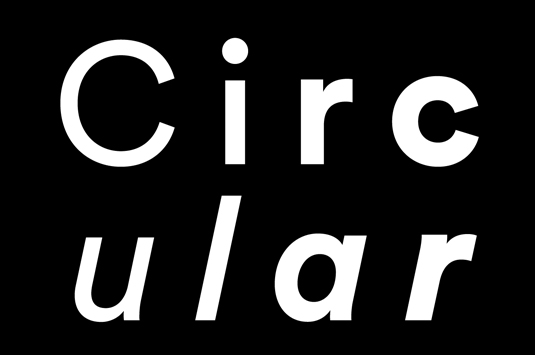
Greatest fonts countdown: 45 – LL Circular
We're counting down the 100 greatest typefaces in existence. Here's number 45...
FontShop AG, the renowned type foundry, conducted a survey based on historical relevance, sales at FontShop.com, and aesthetic quality. With a few additions from the experts at Creative Bloq and Computer Arts magazine, the best fonts ever were selected for the book, 100 Best Typefaces Ever.
Here we are counting down the 100 greatest fonts, without further ado, here's the 45th best typeface…
45. LL Circular
- Laurenz Brunner, 2013
The second typeface from Swiss foundry Lineto and designer Laurenz Brunner (the first being the popular Akkurat), Circular is a geometric sans serif with eight styles: Book, Italic, Medium Italic, Bold, Bold Italic, Black and Black Italic. Further lighter weights and a monospaced version are currently in development.
According to the foundry, LL Circular is a new take on a classic genre forts explored by Paul Renner's Futura – with Circular striking a balance between functionality, conceptual rigor, skilled workmanship and measured idiosyncrasy.